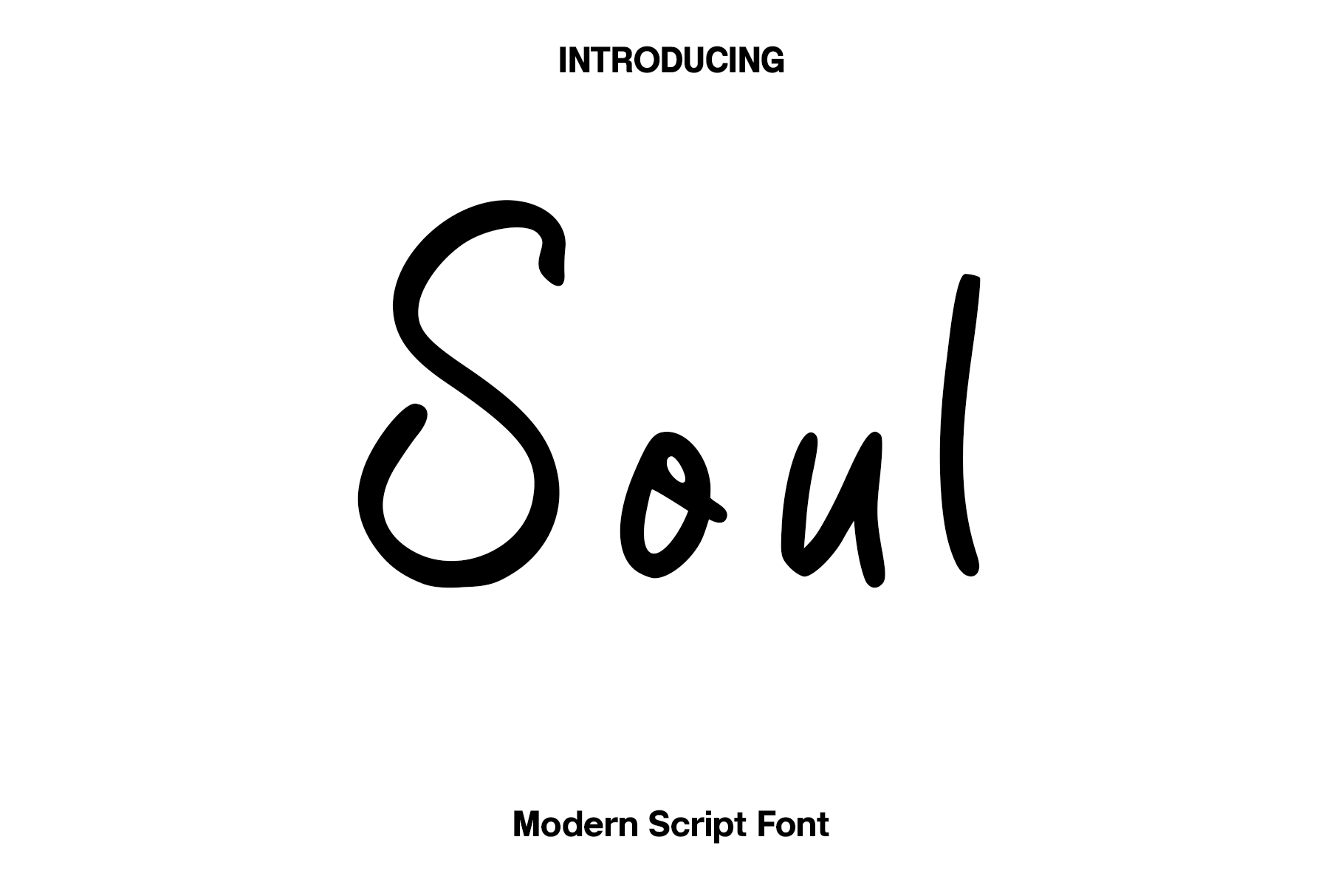
Soul - Modern Script Font
Soul is a bold modern display font designed to bring energy, confidence, and contemporary style to every creative project. Inspired by modern architecture, geometric typography, and urban design, Soul features distinctive cutout details, bold letterforms, and a dynamic slanted structure that creates a strong sense of movement and visual impact. Every character is carefully crafted to deliver outstanding readability while maintaining a unique and memorable personality, making it the perfect choice for bold display typography.
Ideal for poster titles, menu flyers, product packaging, logos, monograms, branding, product labels, apparel, editorial layouts, advertising campaigns, social media graphics, YouTube thumbnails, and promotional materials, Soul adapts seamlessly to both print and digital media. Its modern aesthetic helps brands and designers create eye-catching visuals that feel fresh, professional, and full of character.
Whether you're developing a contemporary brand identity, designing premium packaging, creating impactful headlines, or producing creative marketing materials, Soul provides the versatility and visual strength needed to elevate your work. Its balanced proportions and clean geometric construction ensure every word communicates power, clarity, and modern sophistication.
With its bold personality and premium craftsmanship, Soul transforms ordinary typography into striking visual statements that capture attention and leave a lasting impression. It is an essential display font for designers looking to create modern branding and dynamic typography with confidence and style.
Soul Font Features: • Modern display style • Bold letterforms with unique cutout details • Dynamic slanted design • Uppercase and lowercase characters • Numbers and punctuation • Perfect for posters, menu flyers, packaging, logos, monograms, branding, labels, apparel, social media, and advertising • Suitable for both print and digital projects • OTF and TTF file formats included